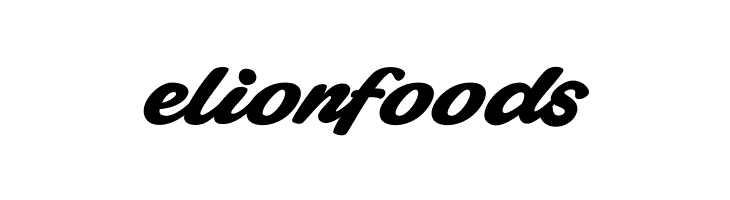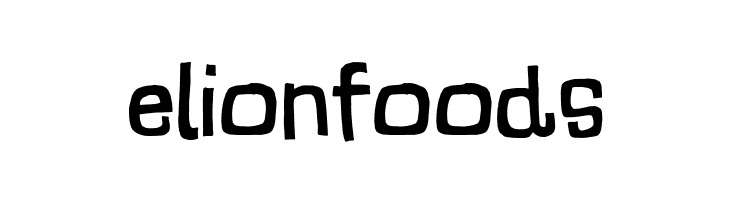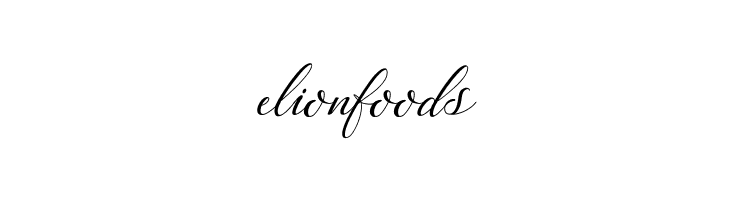
( Måns Grebäck - www.mansgreback.com )
A bold, cursive font with a dynamic and elegant style.
( Peter Olexa - www.dealjumbo.com )
A bold serif font with strong vertical lines and slightly curved serifs.
( Pizzadude - Jakob Fischer - www.pizzadude.dk/ )
A playful, hand-drawn font with a quirky and artistic style.
( Rifan Asri )
An elegant, flowing script font with ornate uppercase and cohesive lowercase letters.
( Runsell Studio - creativemarket.com/RunsellStudio )
A fluid and elegant handwritten script with medium contrast and decorative flourishes.
( Runsell Studio - creativemarket.com/RunsellStudio )
A sophisticated and flowing script font with a handwritten appearance.
( Techno Cool XYZ )
A bold, modern font with geometric shapes and rounded edges.
( Volker Busse - F25 Digital Typeface Design - Volker Busse - www.grafikkontor-mitte.de )
A bold, monospaced font with uniform strokes and clear readability.
( Volker Busse - F25 Digital Typeface Design - Volker Busse - www.grafikkontor-mitte.de )
A bold, monospaced font with a typewriter-like aesthetic.